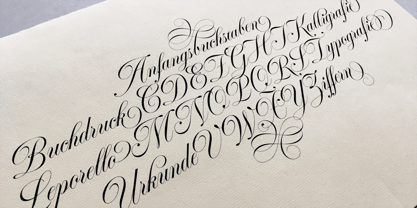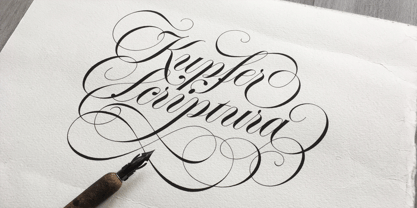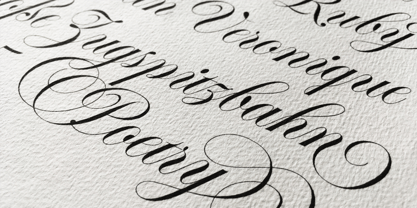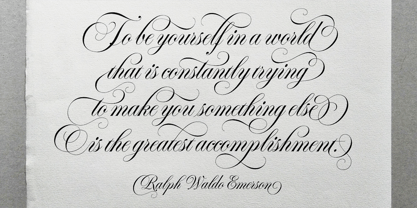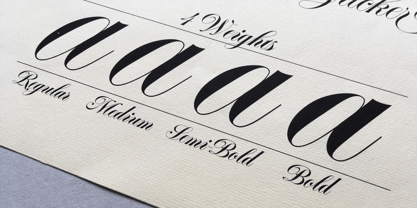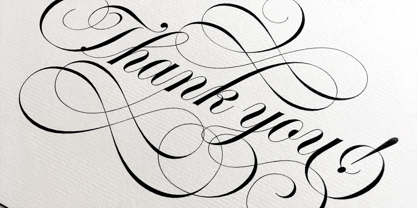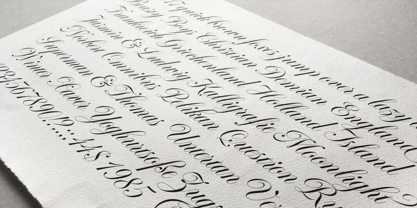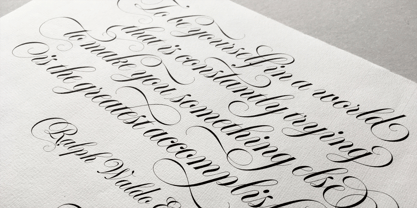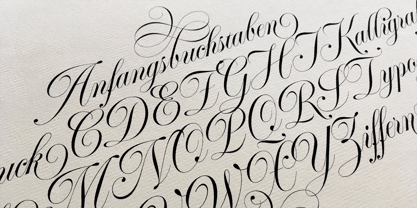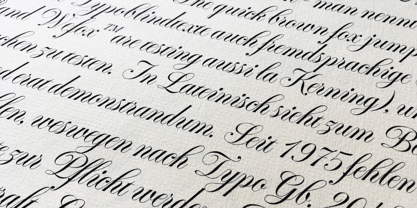
Kupfer Scriptura
by KaiserType
The Kupfer Scriptura Font Family was designed by Bertram Kaiser and published by KaiserType. Kupfer Scriptura contains 4 styles and family package options. More about this family
"Kupfer Scriptura" is a beautifully crafted roundhand script font designed by Bertram Kaiser. Originally penned with a pointed nib, this font has undergone typographic refinement over the years. It features a striking high contrast design characterized by delicate hairlines and bold strokes, resulting in an overall elegant and decorative appearance. With a wide array of alternate glyphs, swash capitals, and both initial and terminal forms, it allows for the creation of unique, dynamic text layouts reminiscent of traditional calligraphy. To achieve visually appealing text designs with alternating swash letters, be sure to activate the "contextual alternates" feature alongside the "swashletters" option. This versatile font is suitable for both display sizes and smaller text applications, making it ideal for invitation cards, certificates, and magazines.
Designers: Bertram Kaiser
Foundry: KaiserType
Kupfer Scriptura